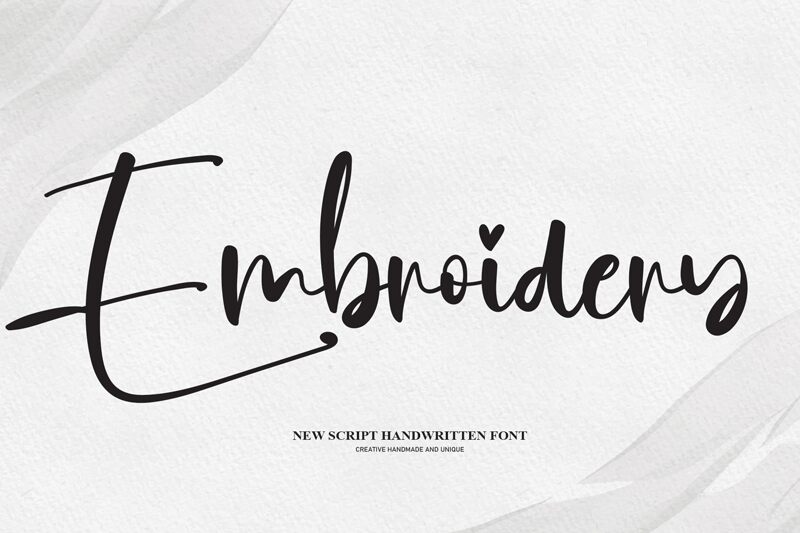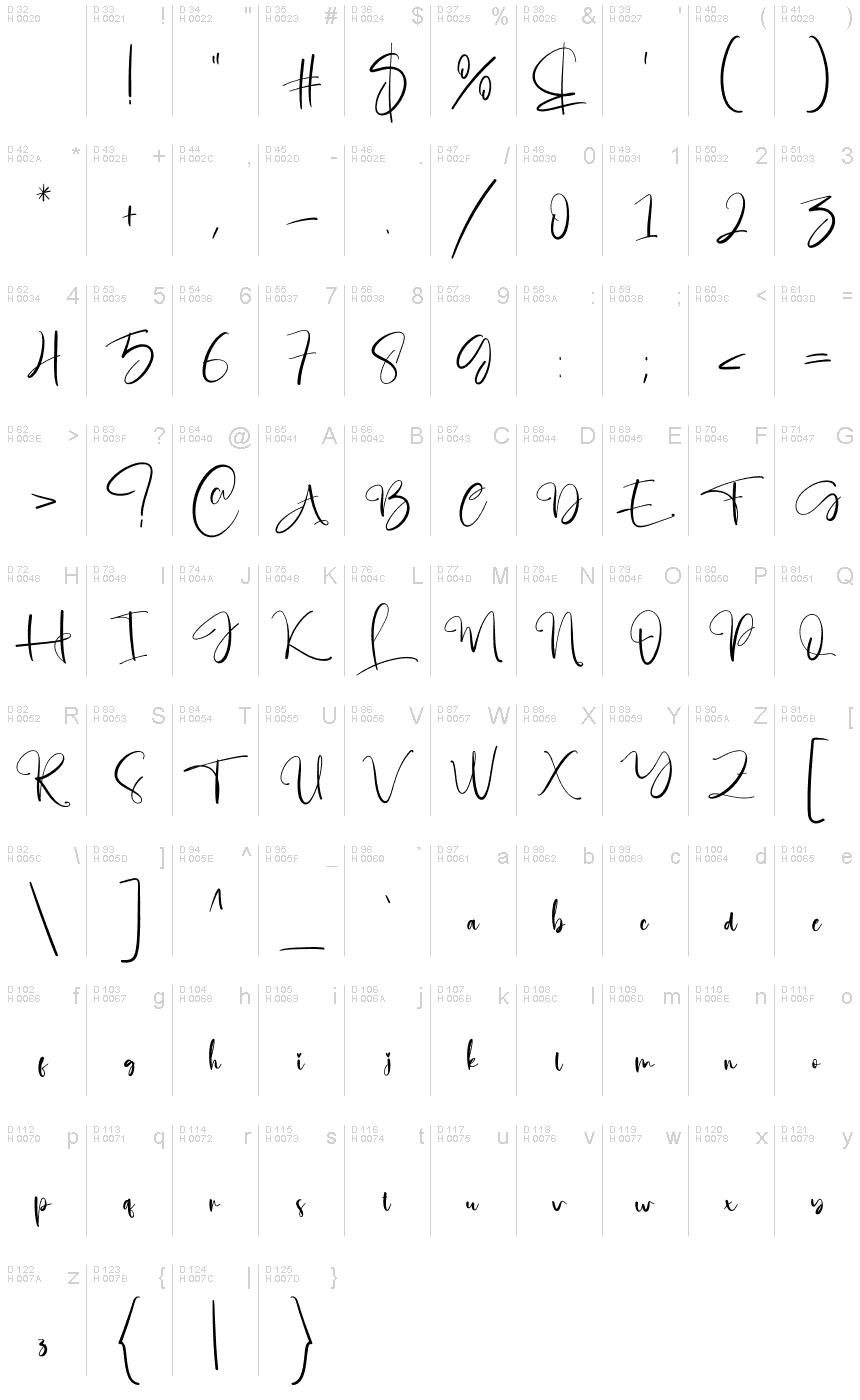
Embroidery
Embroidery, a delightful creation by Scratchones, is a light, handwritten font that adds an artistic touch to any project.
Its charming strokes and delicate curves make it the perfect choice for wedding invitations, greeting cards, and personal stationery. With its whimsical appearance, Embroidery brings a sense of warmth and creativity to craft blogs and DIY websites. This font effortlessly lends itself to children's book illustrations, adding a playful and imaginative element. Whether designing logos or creating social media graphics, Embroidery infuses elegance into every creative endeavor.